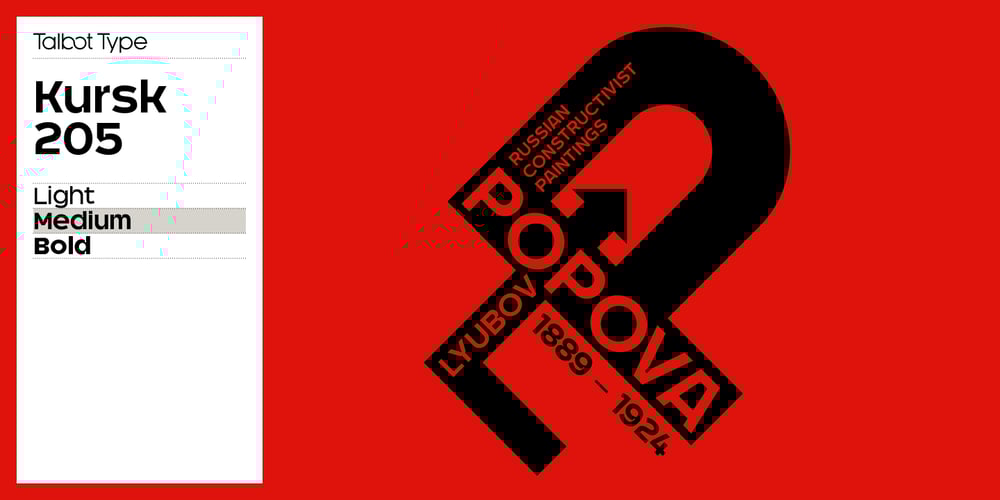
Kursk 205 Font Family was designed by Adrian Talbot and published by Talbot Type. Kursk 205 contains 5 styles and family package options. A text and display font with square proportions, inspired by the type styles of soviet-era Russia. Very shallow ascenders and descenders and a large relative x-height, exaggerate the compact and geometric look. Related to Kursk 105, its squarer-edged cousin.